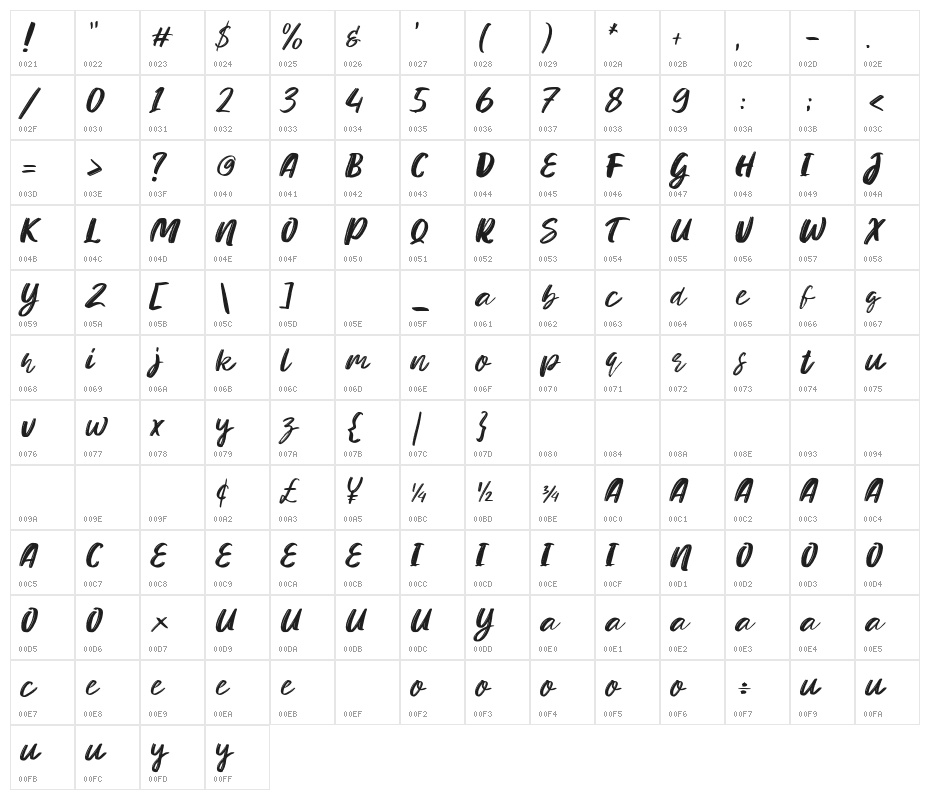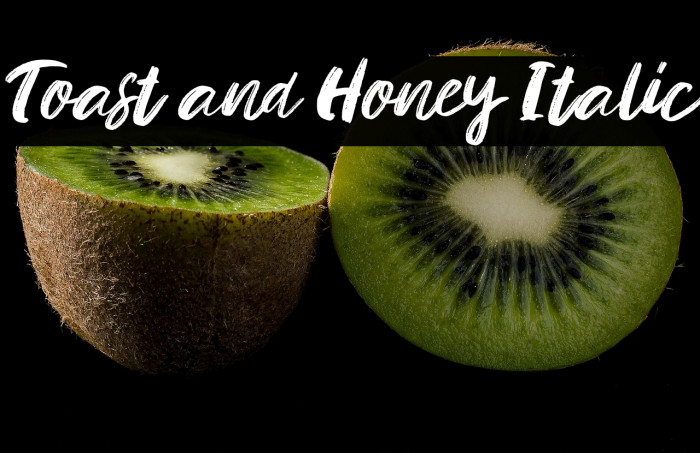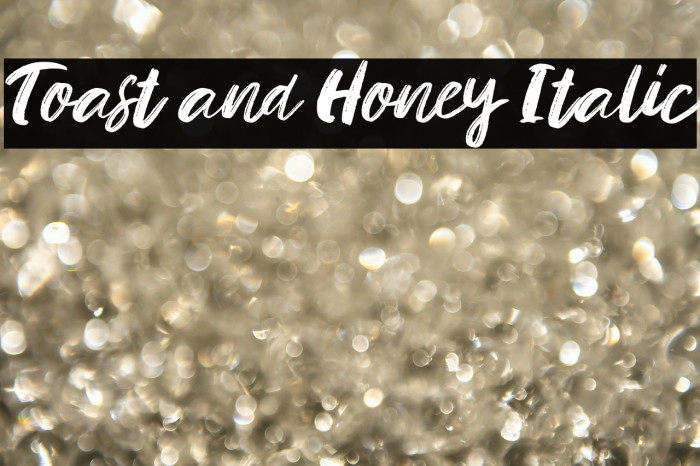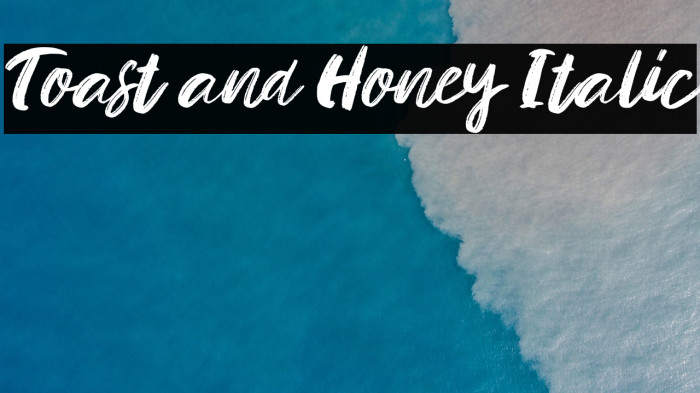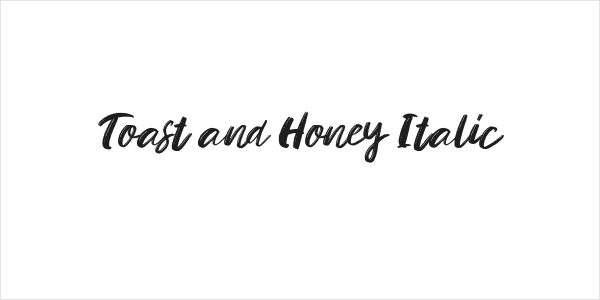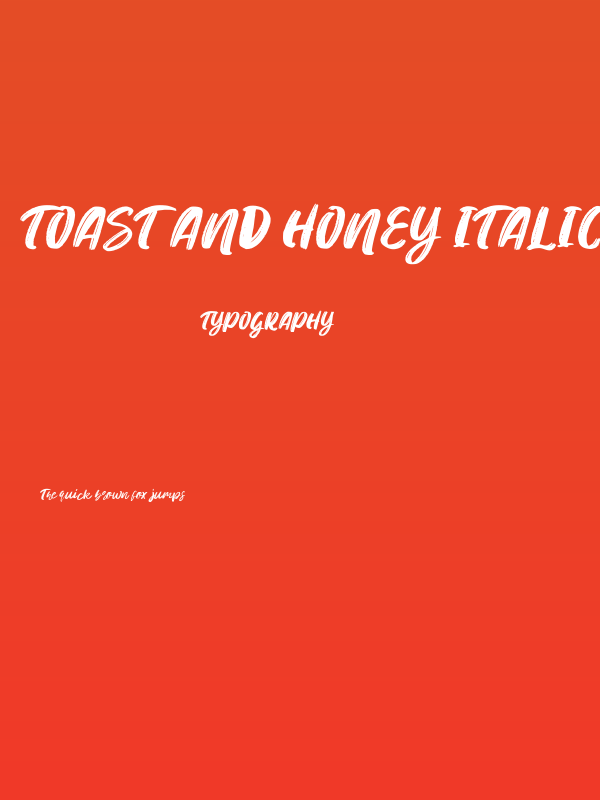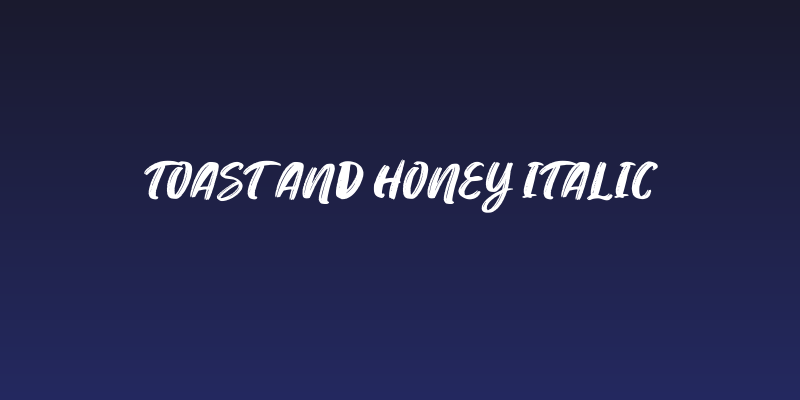
Toast and Honey Italic Font
Toast and Honey Italic Description
This font exhibits a lively and dynamic script style, characterized by its bold, flowing strokes and a handwritten appearance. The letters are slightly slanted, adding an elegant and casual feel. The uppercase and lowercase letters maintain a consistent style, with smooth curves and a playful touch. The numbers and special characters are equally expressive, ensuring a cohesive look across all text elements. This font's energetic style makes it perfect for projects that require a personal and inviting touch.
| Proposed Projects | Ideal for greeting cards, invitations, branding, and social media graphics. |